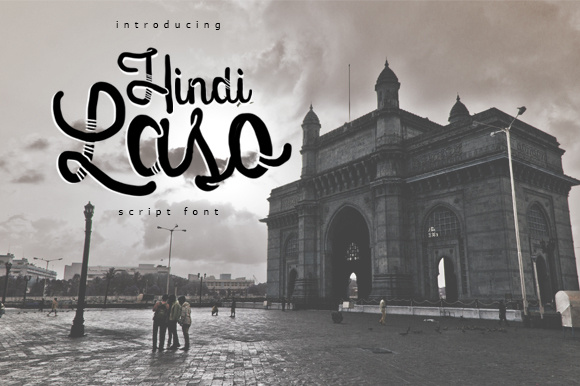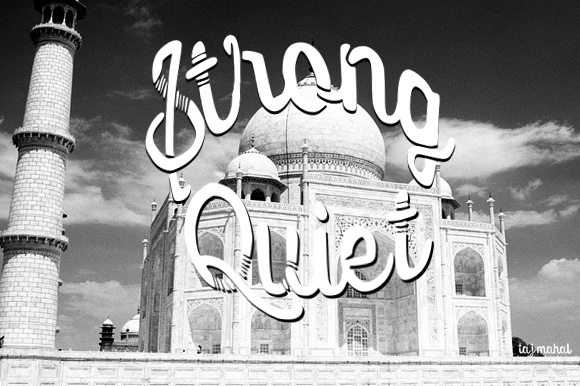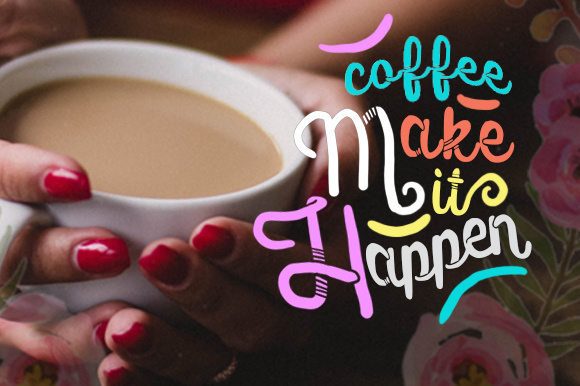
About Hindi Laso Font
“Hindi Laso” is a new, casual script font. Whether you need a modern vision or a vintage feeling, Hindi Laso has the look for you. Hindi Laso is great for any kind of usage from advertising materials to packaging or posters. Hindi Laso is offering you a handwritten font with textured lines and multiple unique styles.